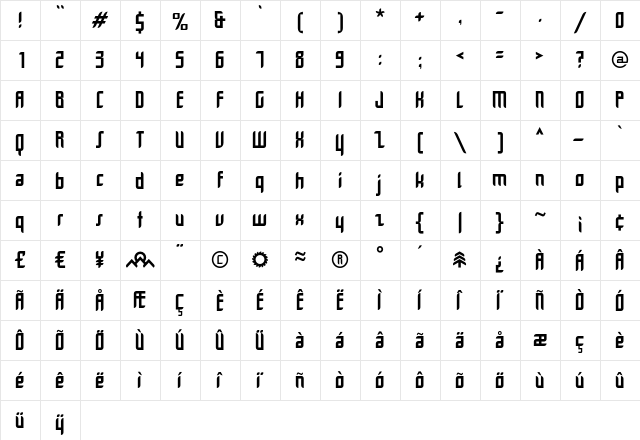
Dimentia Thin
Design Context for Dimentia Typeface
Dimentia offers clean, dependable letterforms without strong stylistic allegiance, making it a practical choice for designers who need flexibility. Its slender proportions lend an understated elegance to any composition.